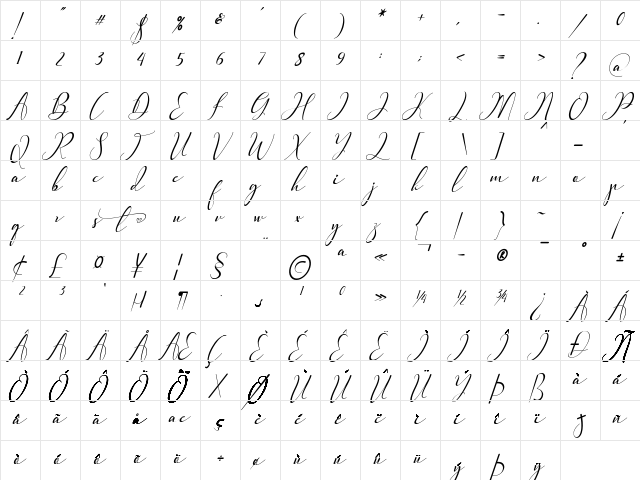
Pretty Willie Italic Font Preview
Pretty Willie Italic
Pretty Willie Italic Font Details
Design Context for Pretty Willie Typeface
Pretty Willie is a composed and adaptable typeface that performs quietly and consistently across a wide range of design contexts. The dynamic lean of this cut emphasises speed and emphasis in any layout.
Pro Tip: Try Pretty Willie for annotation and caption copy alongside an upright companion — the contrast in angle creates a dynamic but ordered typographic system.